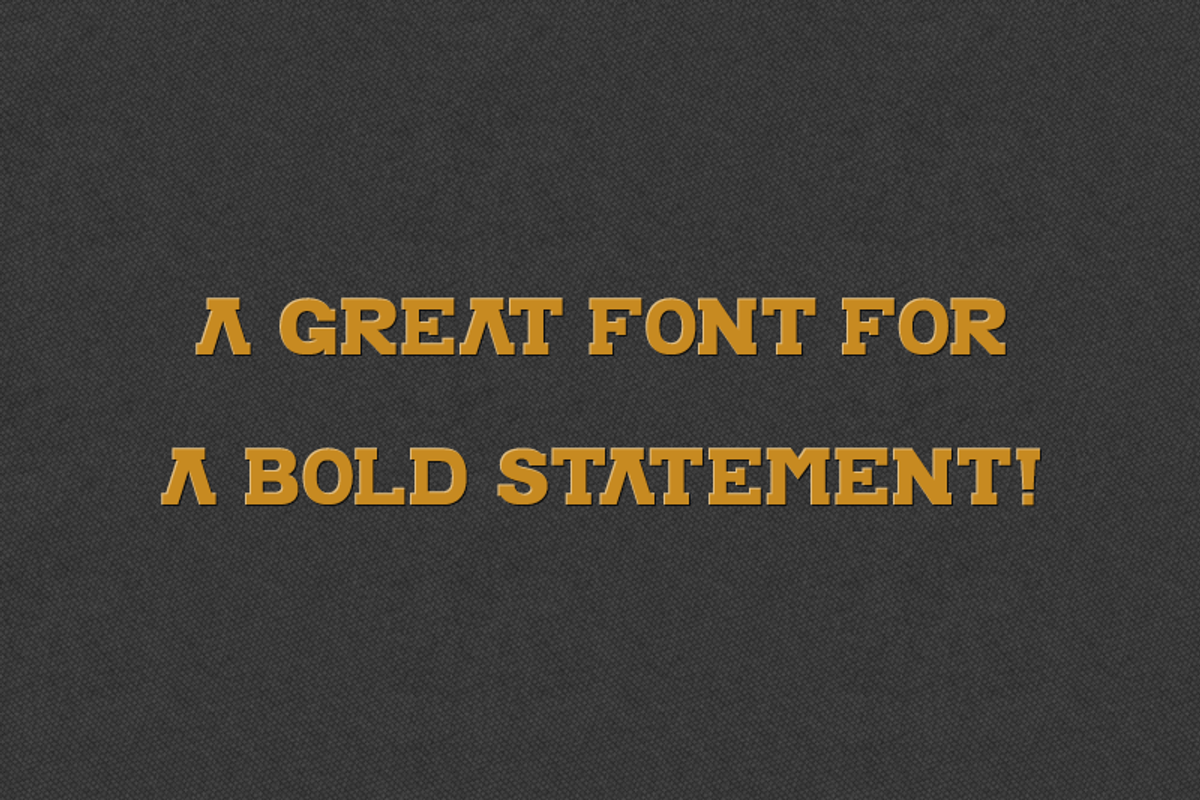
The Blocky Font
The Blocky Font by Lonely Pixel Co. is a font selected for branding, posters, packaging, typography.
- Although designed to be used primarily as an all caps font I have included a lowercase set if the situation requires it.
Why The Blocky Font is worth a look
The Blocky Font by Lonely Pixel Co. fits naturally into Branding, posters, packaging, typography.